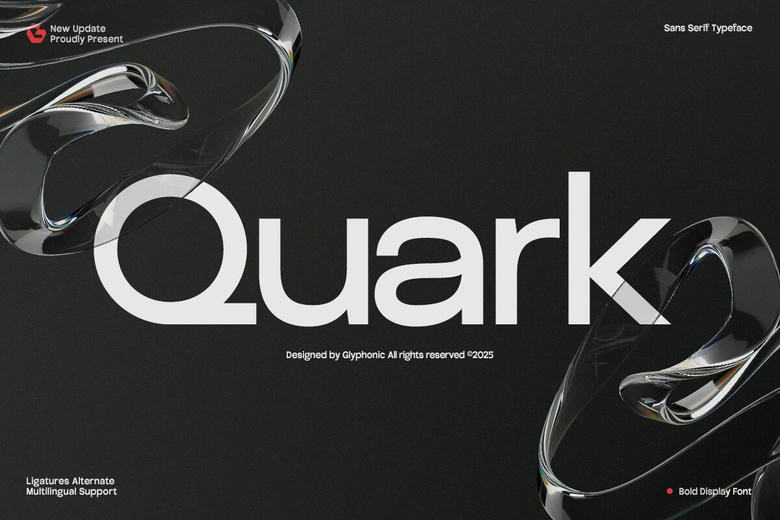
Quark Font
Quark is a smooth contemporary sans-serif typeface that incorporates a minimalist design with a sophisticated clarity. It is a modern soul with a high level of readability and is ideal in branding, editorial layouts, logos, user interfaces, and product packaging.
Quark is crisp and professional with its clean lines, equal stroke widths, and geometric balance. The letterforms are designed to look technical and elegant, which makes it a flexible option among designers in the field of tech, fashion, architecture, and lifestyle branding.
Quark Sans Serif Font